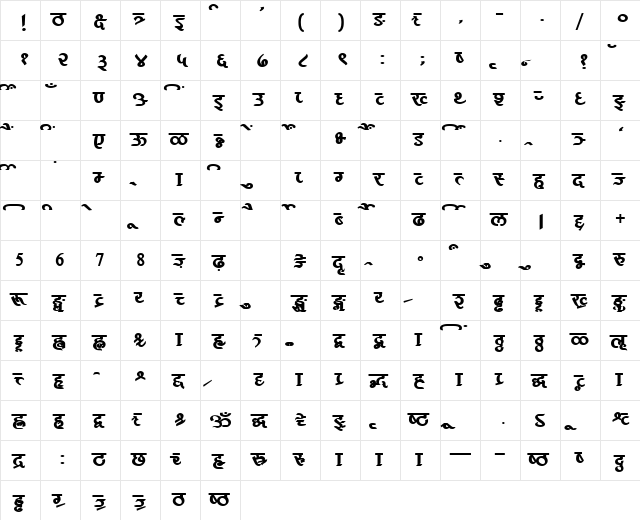
AkrutiDevChandrika Bold Font Preview
AkrutiDevChandrika Bold
Design Context for AkrutiDevChandrika Typeface
AkrutiDevChandrika flows with the natural rhythm of handwritten lettering, making it ideal for designs that call for warmth and personal expression. The heavy weight commands attention and anchors typographic hierarchies.